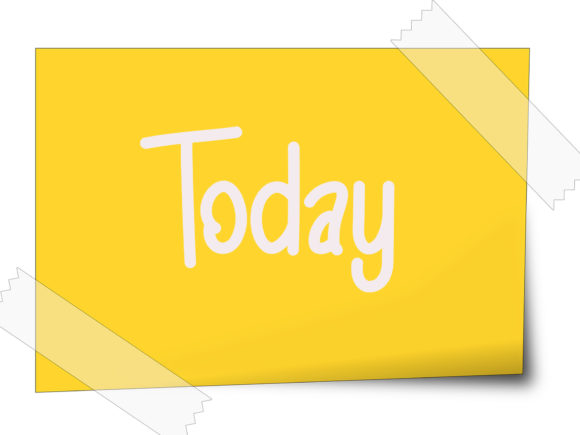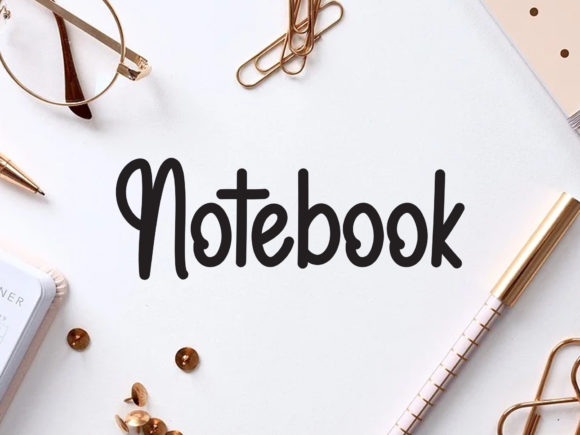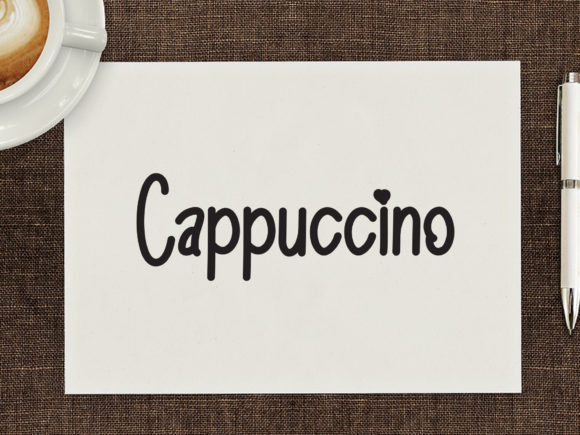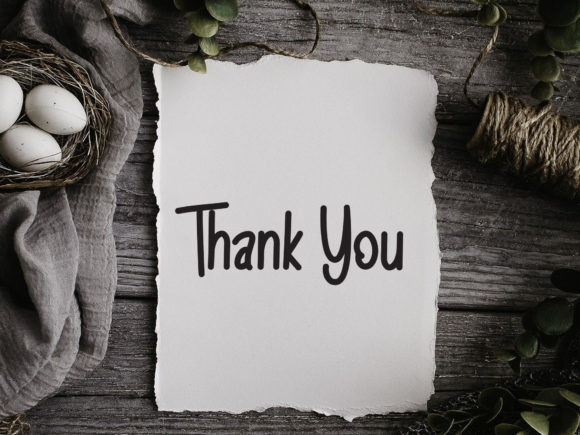
The Quest for the Perfect Handwritten Font: Discovering Familly
I still remember the design project that led me to Familly Font. I was working on a branding project for a small bakery, and I needed a font that would capture the warmth and coziness of their freshly baked goods. I spent hours scouring the internet for the perfect handwritten font, but nothing seemed quite right. That was until I stumbled upon Familly Font. ✨
A Sweet Handwritten Font: First Impressions
Familly Font is a sweet handwritten font that has been crafted with great care to produce a unique and inviting feel. As soon as I opened the font in my design software, I knew I had found what I was looking for. The characters are rounded, friendly, and full of personality. It’s the perfect font for designers, crafters, and creative hobbyists looking to add a personal touch to their projects.
Here’s what I love about Familly Font:
- ✅ Unique Character: Each character has a distinct personality, making it perfect for creating eye-catching designs.
- ✨ Highly Legible: Despite its handwritten nature, Familly Font is surprisingly legible, even at small sizes.
- ✅ Versatile: This font can be used for a wide range of projects, from branding and packaging to invitations and crafts.
And here are a few small quirks to keep in mind:
- ⚠️ Limited Use in Formal Contexts: Due to its informal nature, Familly Font may not be the best choice for formal documents or corporate branding.
- 🤔 Kerning Issues: As with many handwritten fonts, you may need to adjust the kerning to achieve optimal results.
The Story Behind Familly Font
Familly Font was designed by a team of typographers who wanted to create a font that would capture the warmth and personality of handwritten text. Inspired by classic handwritten fonts, they crafted Familly Font to be both elegant and approachable. The result is a font that’s perfect for designers, crafters, and creative hobbyists looking to add a personal touch to their projects.
| Font Name | Familly Font |
| Author | PAYJHOshop |
| What is Familly Font best used for? | Familly Font is perfect for a wide range of projects, including branding, packaging, invitations, and crafts. |
| Is Familly Font suitable for body text? | While Familly Font is legible, it’s best used for headings and titles. For body text, a more traditional font may be more suitable. |
| Is Familly Font available in different languages? | Familly Font may not support all languages, but it does include a range of glyphs and characters to support many languages. |